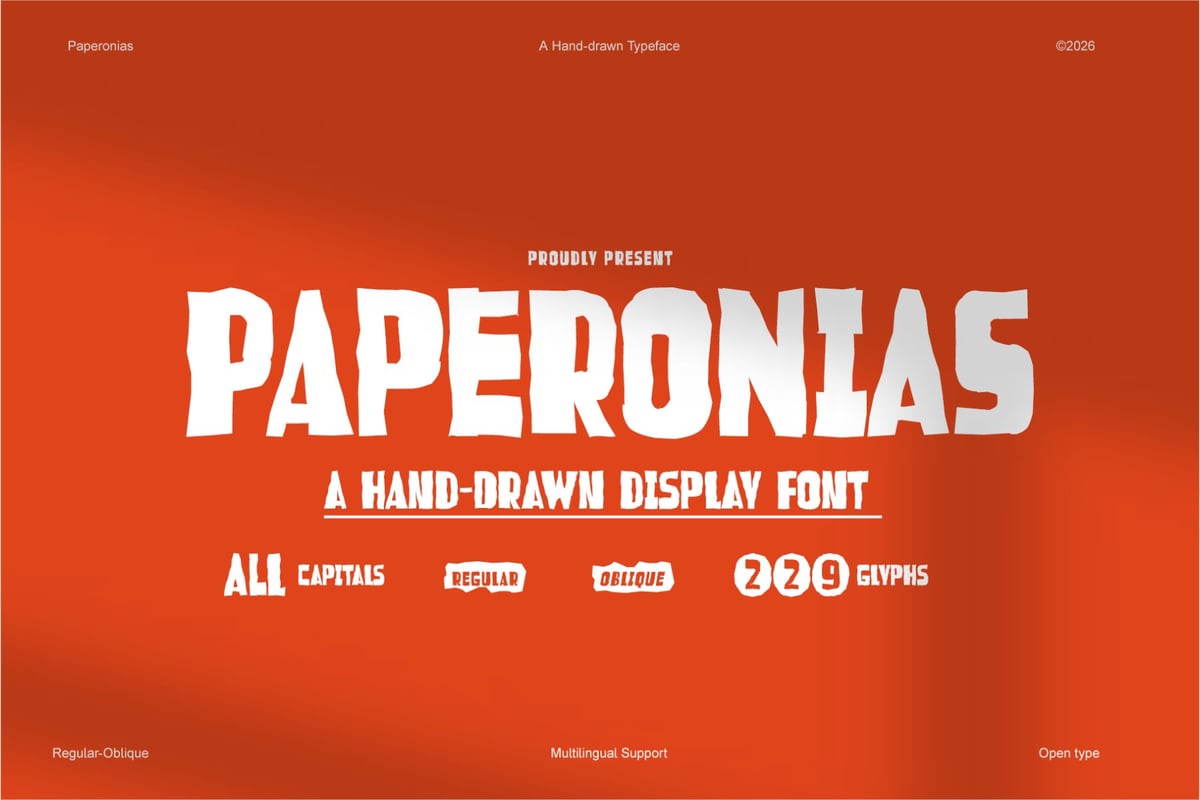
Paperonias - Handdrawn Display Font
Paperonias brings raw, hand-drawn energy to every design — bold, playful, and impossible to ignore.
Paperonias is a hand-drawn display sans-serif typeface built to inject personality, creativity, and an organic warmth into your projects. Irregular strokes, natural textures, and expressive letterforms give it a genuinely handmade feel without sacrificing readability or visual impact.
Whether you're designing restaurant menus, food packaging, children's book covers, social media graphics, branding identities, or editorial layouts — Paperonias delivers a lively, distinctive typographic voice that stands out in both print and digital contexts.
- Hand-drawn display sans style with playful, organic letterforms
- Ligatures and alternates for enhanced typographic flexibility
- Multilingual support for multiple languages